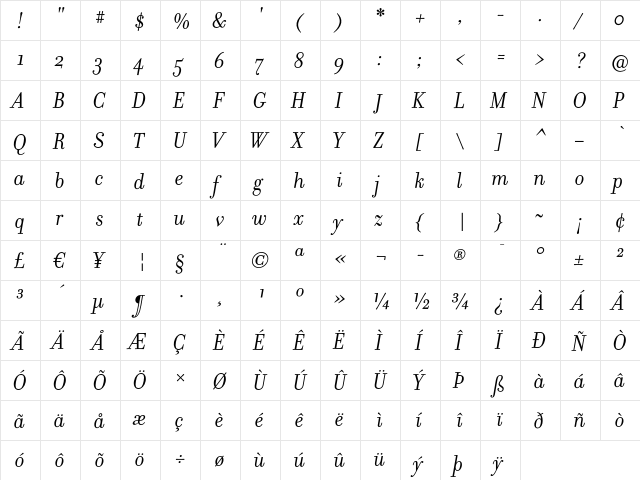
Filosofia OT Italic
Design Context for Filosofia OT Typeface
Filosofia OT is a composed and adaptable typeface that performs quietly and consistently across a wide range of design contexts. The slanted form adds forward momentum and visual energy.
Pro Tip: Try Filosofia OT for annotation and caption copy alongside an upright companion — the contrast in angle creates a dynamic but ordered typographic system.